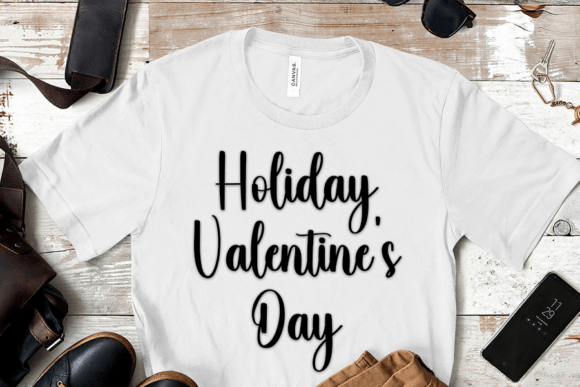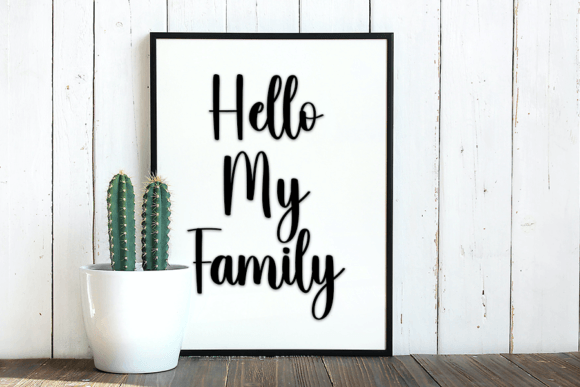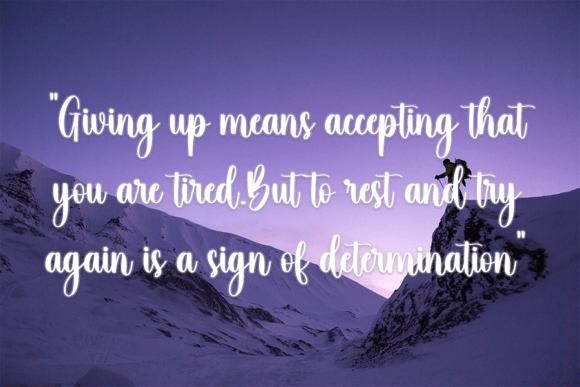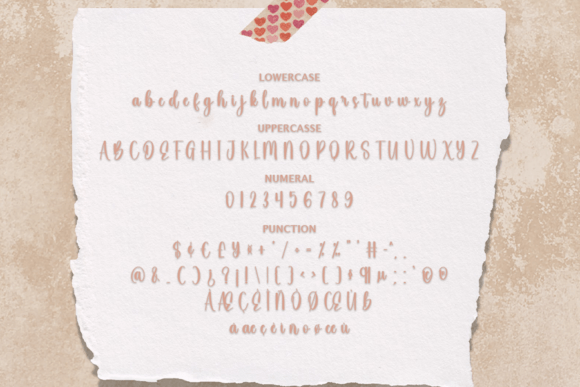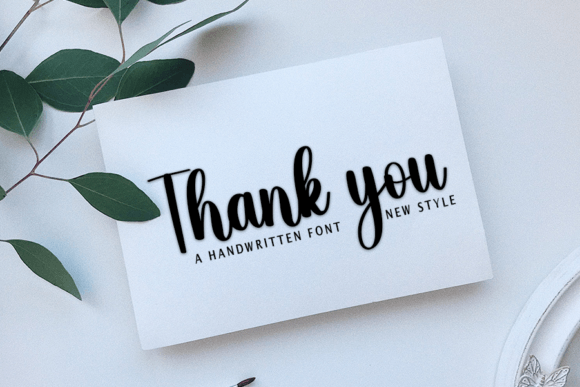
Adding a Touch of Magic to Your Designs
Have you ever been browsing through a craft store, feeling the urge to create something truly special, only to be stopped by a blank piece of paper staring back at you? That’s where inspiration strikes – a spark of creativity that sets off a chain reaction of ideas. For designers, this spark often takes the form of a unique font that elevates their work to the next level.
Enter the Glitter Font, a delicate handwritten font carefully crafted to add a touch of cool and whimsy to your designs. Whether you’re writing love letters, crafting invitations, or branding food products, this font is the perfect addition to your toolkit. Its versatility and charm make it a valuable asset for designers looking to stand out from the crowd.
Glitter Font Key Features
- Font Family: Glitter Font is a unique, hand-drawn font family consisting of 6 styles, including regular, bold, italic, and bold italic.
- Character Count: The font family includes over 300 characters, including uppercase and lowercase letters, numbers, punctuation marks, and special characters.
- Size and Resolution: The font is designed to be scalable, making it suitable for use in various sizes and resolutions, from small text to large headings.
- Unique Characteristics: The Glitter Font features a distinctive, hand-drawn style with intricate details and subtle texture, giving it a premium and elegant look.
Glitter Font Review
Overall, I think the Glitter Font has some great qualities that make it shine ✨, but it also has some limitations that prevent it from being a top choice. Let’s dive in!
- The Glitter Font has a unique and eye-catching aesthetic ✨. It’s perfect for adding a touch of glamour and sophistication to your designs.
- The font is highly customizable, allowing you to adjust the sparkle size, color, and intensity to suit your needs ✨.
- The font is well-suited for use in titles, headings, and other prominent text elements where you want to draw attention ✨.
- The Glitter Font can be overwhelming if used in large quantities ⚠️. It’s best to use it sparingly to avoid visual fatigue.
- The font may not be suitable for body text or long blocks of text ⚠️. It’s better suited for short, attention-grabbing snippets.
Overall, I think the Glitter Font is a great choice for designers who want to add a touch of glamour and sophistication to their designs. Just be sure to use it thoughtfully and in moderation. With its unique aesthetic and high level of customization, it’s a great option for designers who want to stand out from the crowd.
Tips for Getting the Most Out of Glitter Font
Use Glitter Font to add a touch of elegance and sophistication to your designs.
Combine Glitter Font with other fonts and graphics to create a unique visual style.
Experiment with different font sizes, colors, and effects to achieve the desired look.
Glitter Font is perfect for:
Special occasion graphics, such as birthday and anniversary cards.
Product labels and packaging.
Marketing materials, such as brochures and flyers.